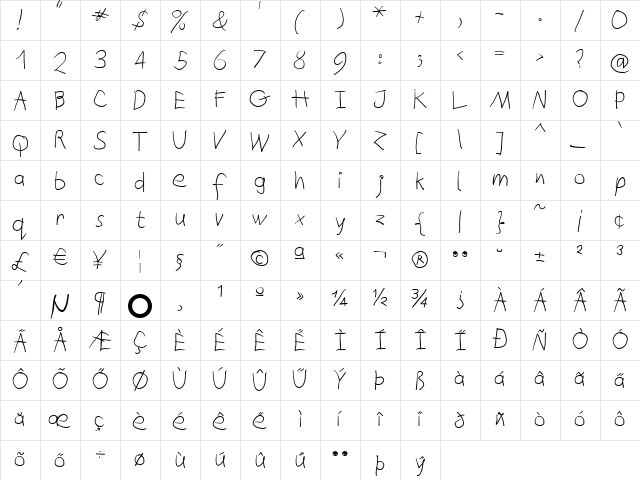
QuickTypes Regular
Design Context for QuickTypes Typeface
QuickTypes is a composed and adaptable typeface that performs quietly and consistently across a wide range of design contexts.